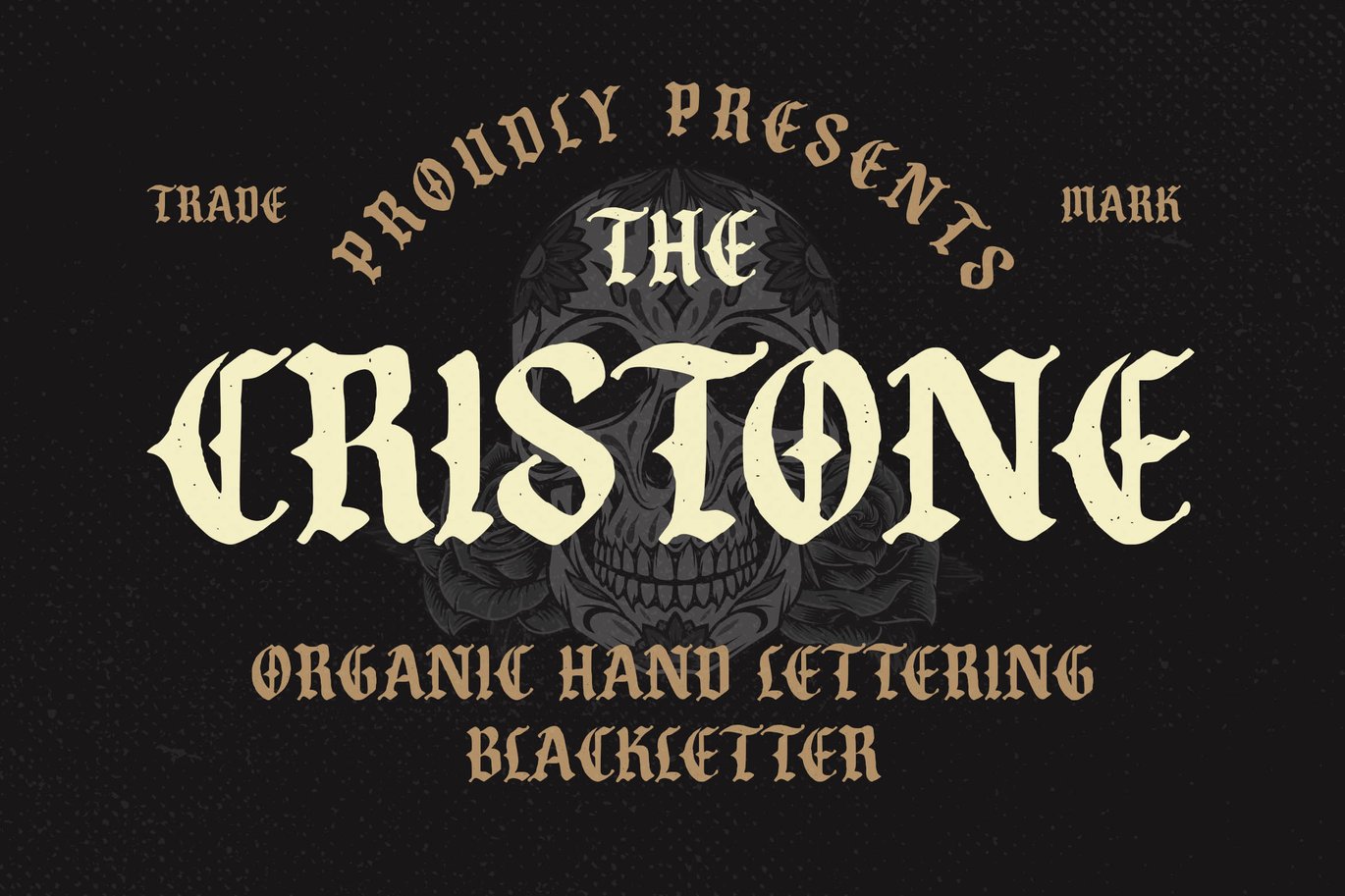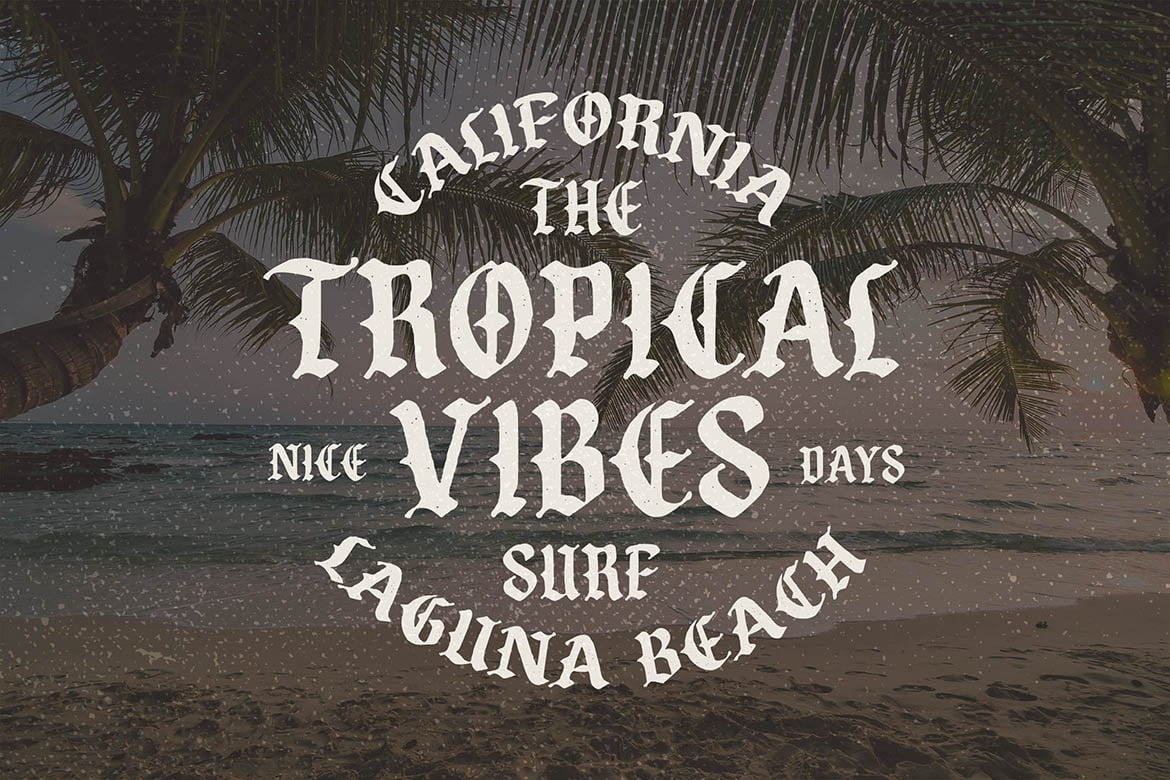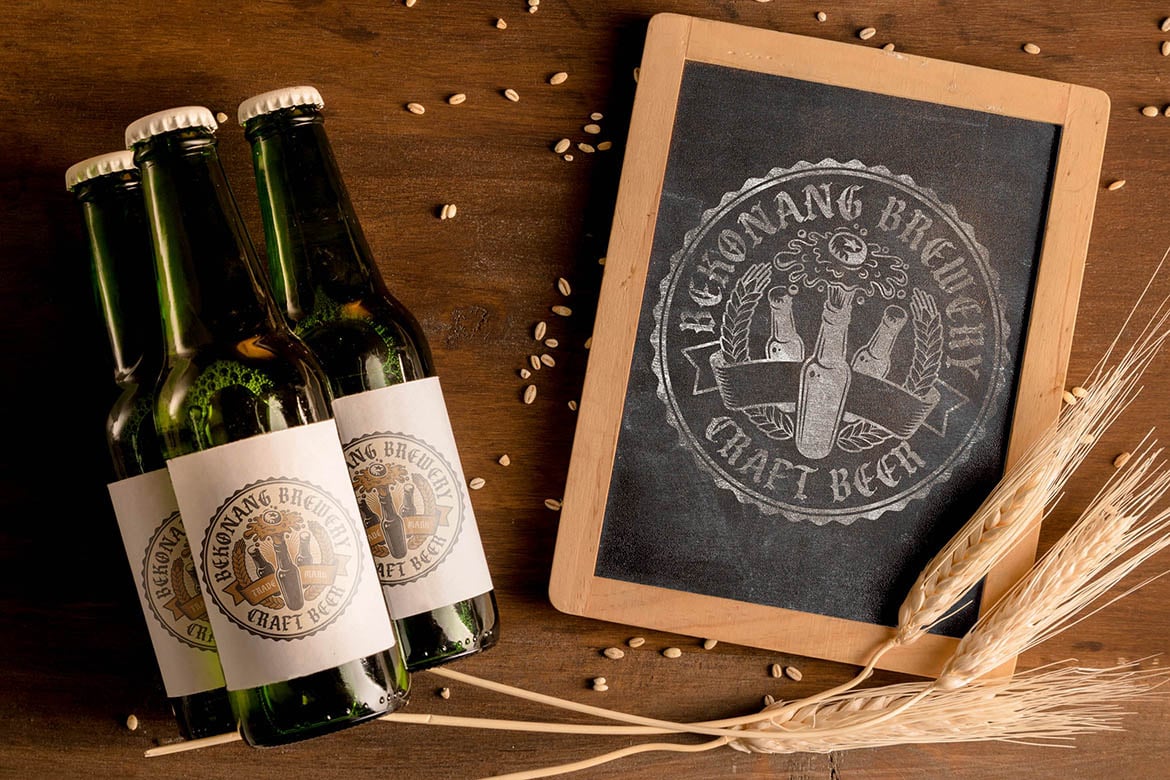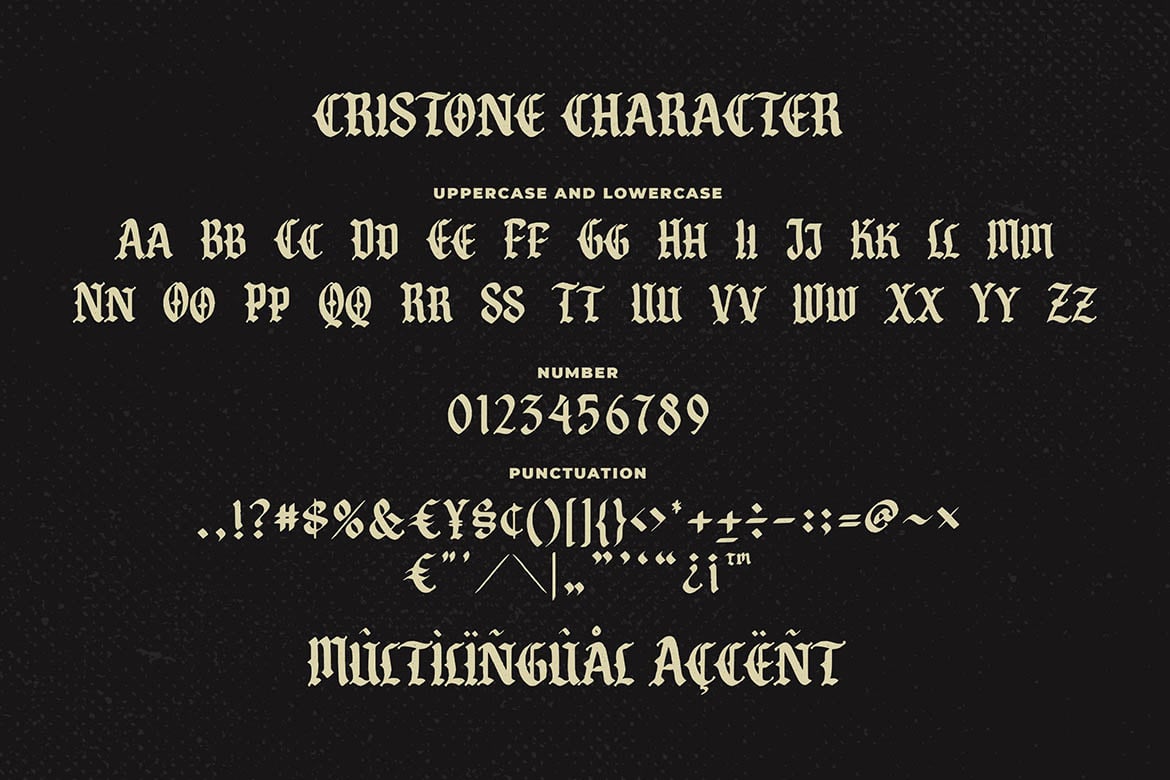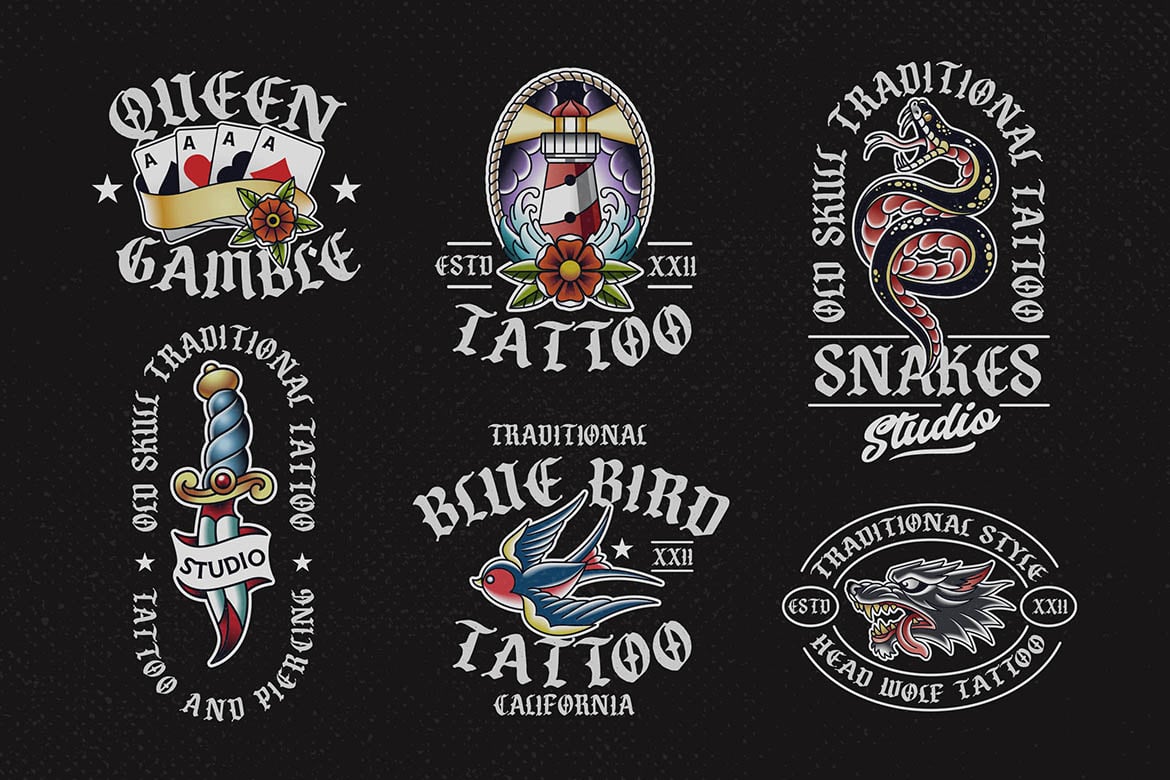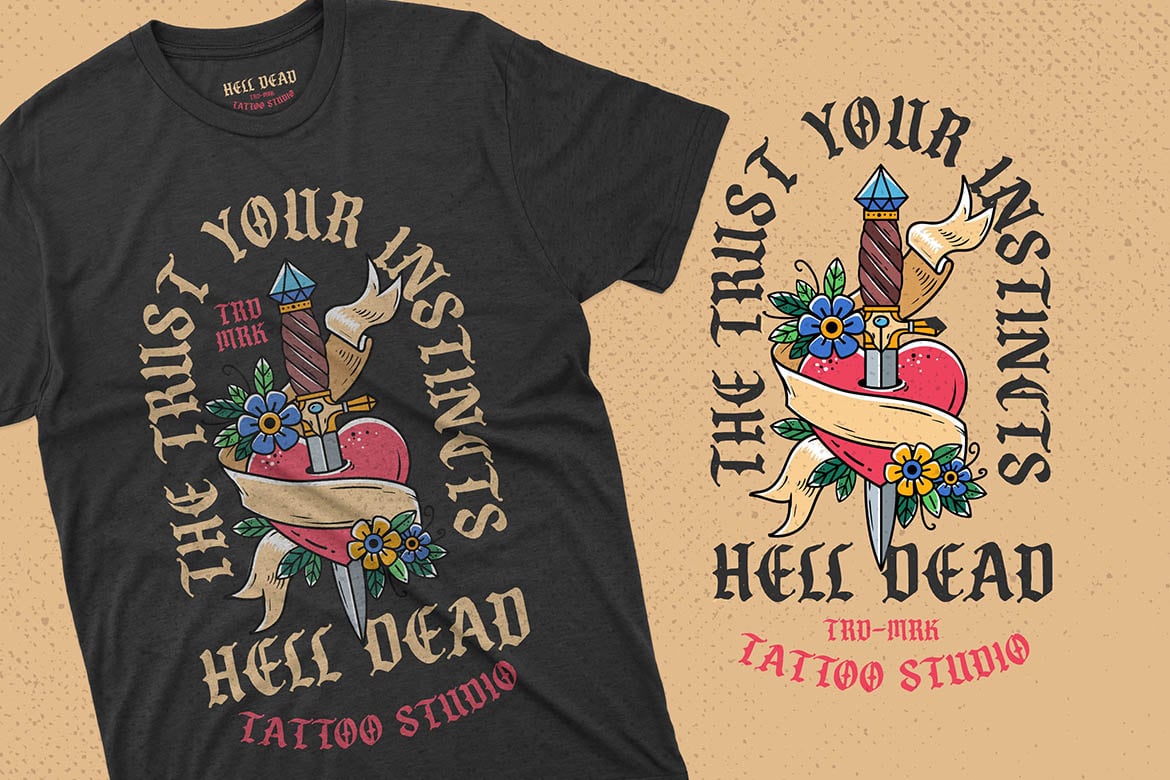
Cristone Blackletter Font
Introducing of our new product the name is Cristone Blackletter Font. Cristone inspired by original handlettering blackletter style this font is a fun theme very good for display, tshirt design, craft, quote sign, logotype and etc